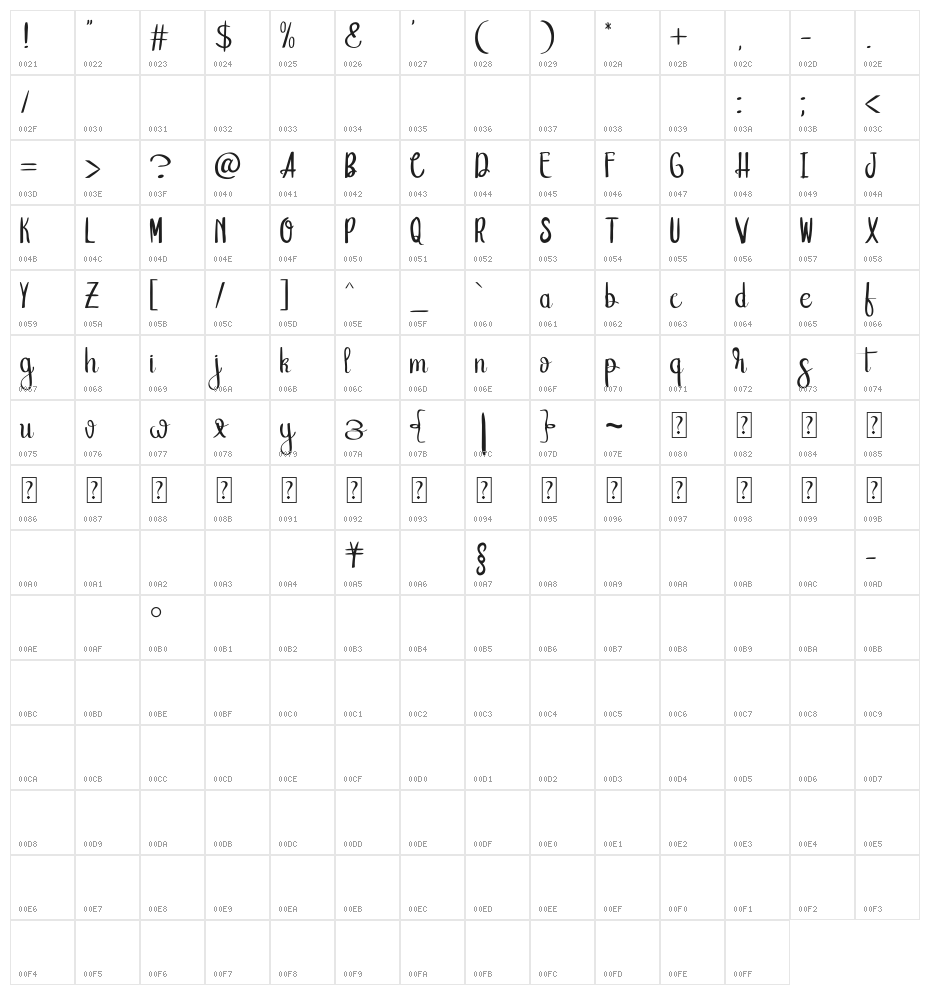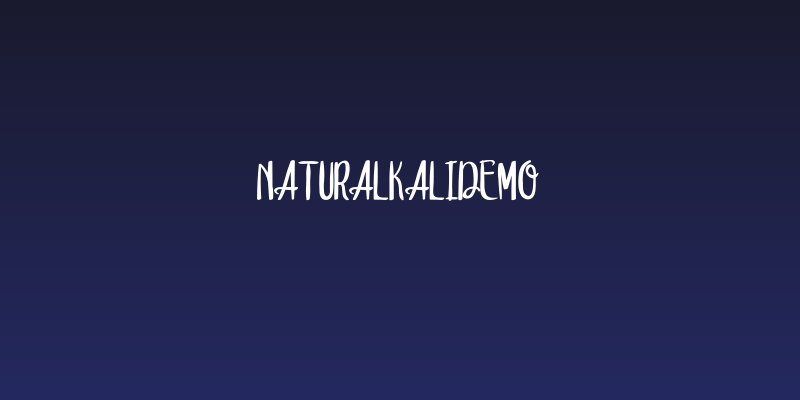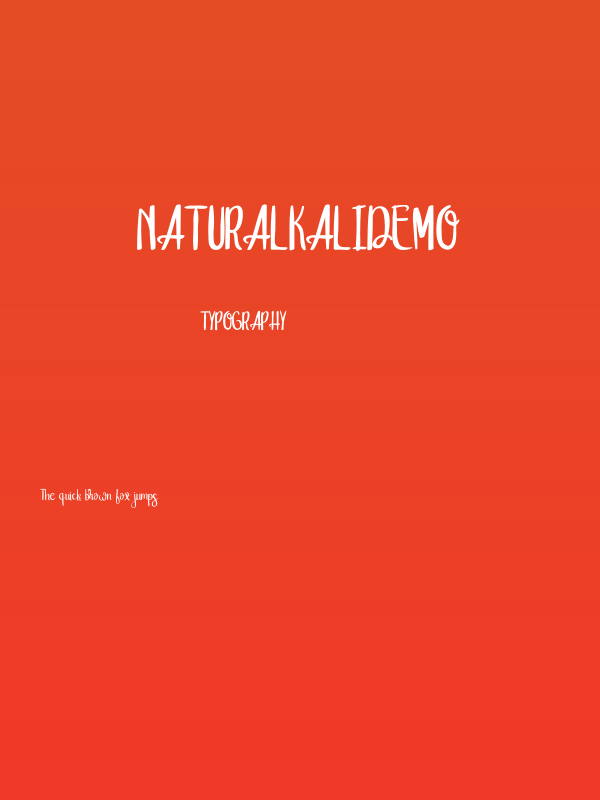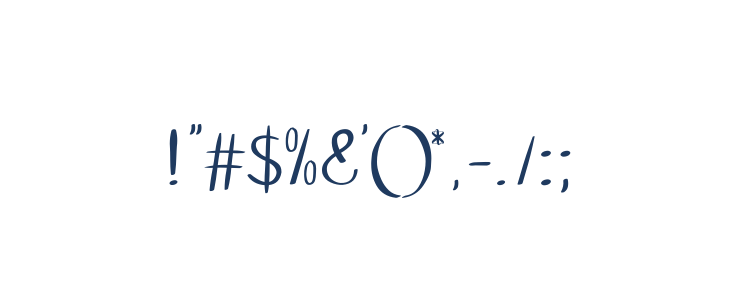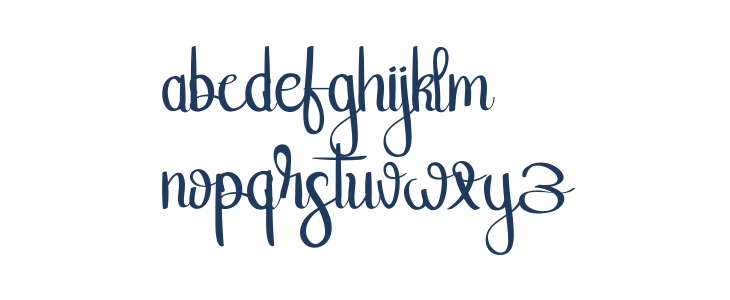
NaturalKaliDEMO Font
NaturalKaliDEMO Description
This font showcases a playful and artistic style with a handwritten appearance. The uppercase letters are bold and slightly condensed, featuring smooth curves and a consistent stroke width that gives them a lively and dynamic feel. The lowercase letters are more fluid, with some characters exhibiting unique loops and swirls that add a whimsical touch. The numerals and special characters maintain the same energetic style, ensuring a cohesive look across all elements. This font's overall design is both modern and decorative, making it suitable for creative projects that require a personal and engaging touch.
| Proposed Projects | Ideal for greeting cards, invitations, posters, and branding projects that require a personal and artistic flair. |